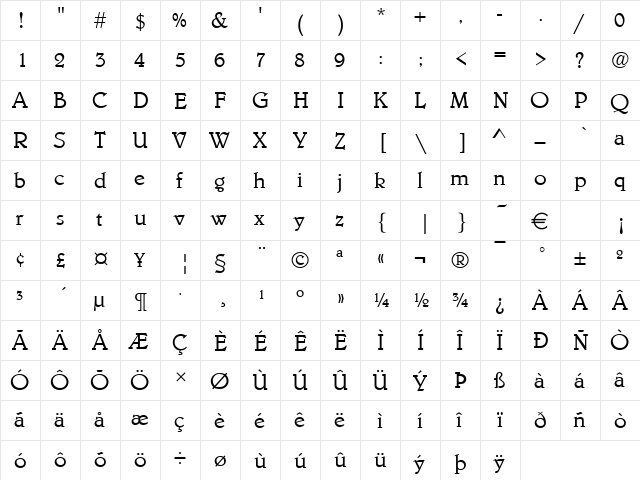
URWBerniniTLig Regular Font Preview
URWBerniniTLig Regular
Design Context for URWBerniniTLig Typeface
URWBerniniTLig offers clean, dependable letterforms without strong stylistic allegiance, making it a practical choice for designers who need flexibility.